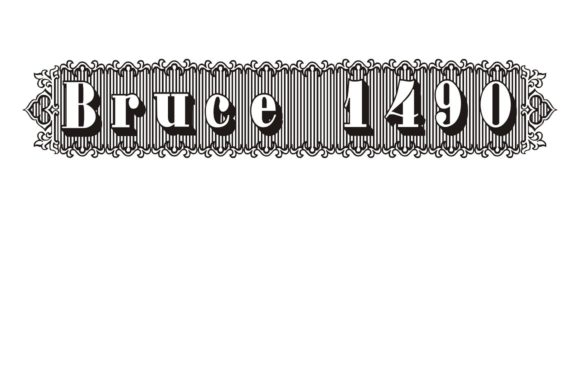
Immerse yourself in the extraordinary world of Bruce 1490 Font, a captivating display font that will ignite your imagination and transform your creative endeavors into masterpieces.
Step into a realm where elegance and opulence intertwine, where every letter becomes an object of art. Inspired by the intricate ribbons of the 1490 font style, this font is a testament to the enduring beauty of typography.
With every stroke, Bruce 1490 Font evokes a sense of nostalgia, drawing upon the rich history of printing and design. Its ornate flourishes and delicate curves whisper tales of a bygone era, adding a touch of timeless sophistication to your projects.
But this font is not merely a relic of the past—it is a dynamic and versatile tool that empowers you to express your creativity in countless ways. Whether you're crafting elegant logos, enchanting invitations, or eye-catching social media posts, Bruce 1490 Font is your artistic ally.
Imagine words that dance across the page, captivating your audience with their intricate details and undeniable charm. Headlines will command attention, while body text will flow with an effortless grace that invites readers to delve deeper into your message.
This font is more than just a collection of letters—it's a gateway to a world of visual storytelling. Transform ordinary words into extraordinary art, and let your imagination soar with Bruce 1490 Font.
As you explore the depths of this remarkable font, you'll discover hidden treasures that will inspire and delight. Its unique character set includes ligatures, alternates, and ornaments that allow you to customize your designs with endless possibilities.
With Bruce 1490 Font at your fingertips, you'll never be short of inspiration. Its timeless appeal and boundless versatility will empower you to create designs that captivate, inspire, and leave a lasting impression.
Don't settle for ordinary fonts—embrace the extraordinary with Bruce 1490 Font. Let your creativity shine through, and watch as your designs blossom into works of art.